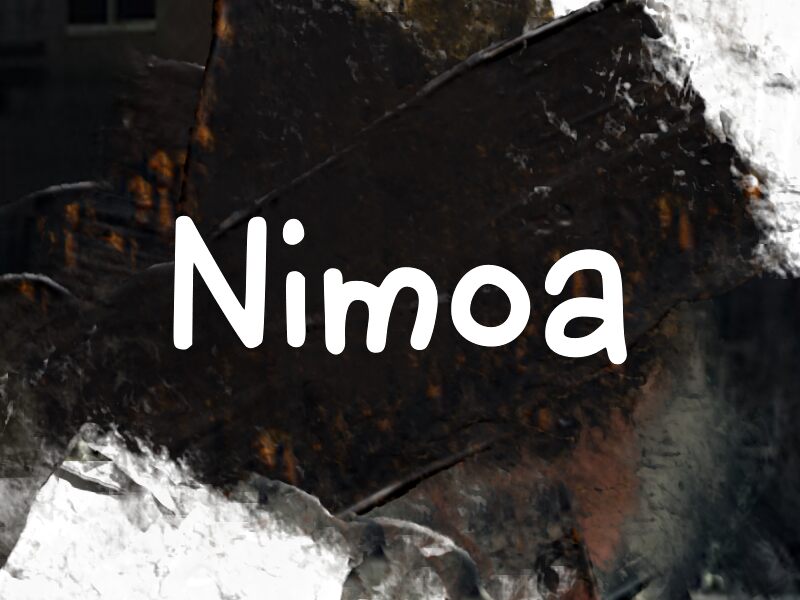
Nimoa
Nimoa font by wep is a free comic display typeface with the friendly wobble of a marker pen on smooth paper. Its chunky, rounded strokes and slightly uneven curves feel hand-drawn and honest, like notes in the margins of a sketchbook. The letters sit close and cozy, giving headlines a bold, inky presence without ever feeling shouty or harsh.
Using Nimoa, you can bring warmth and playfulness to kids’ book covers, comic panels, stickers, posters, web banners, and casual branding. This free font shines when set big and bold, where its soft shapes and organic rhythm can really breathe. For longer copy, pair Nimoa with a simple geometric sans to keep things readable while letting the comic personality lead the way.